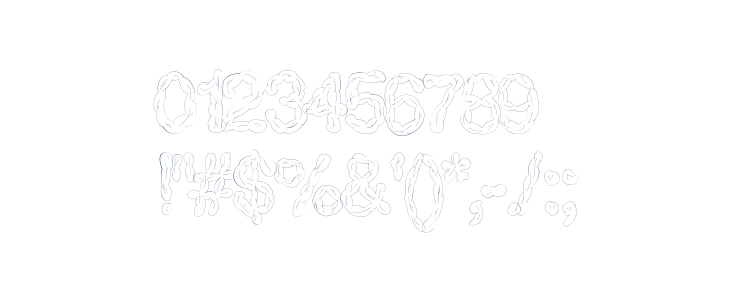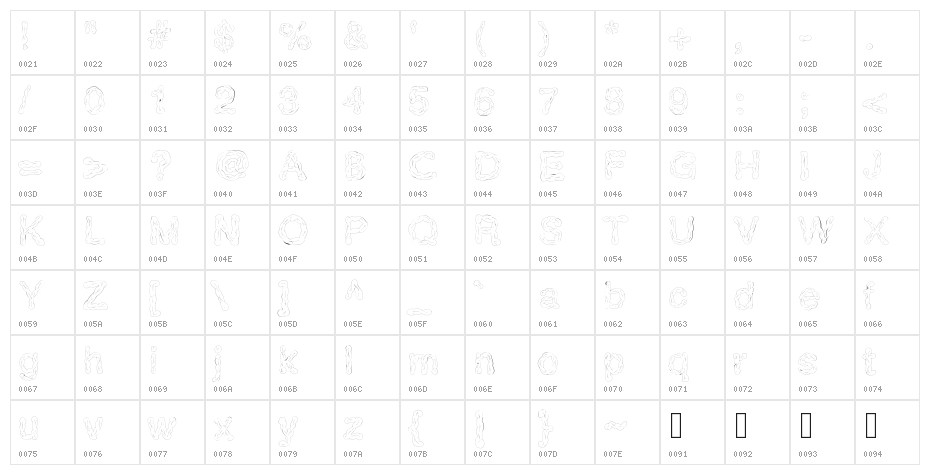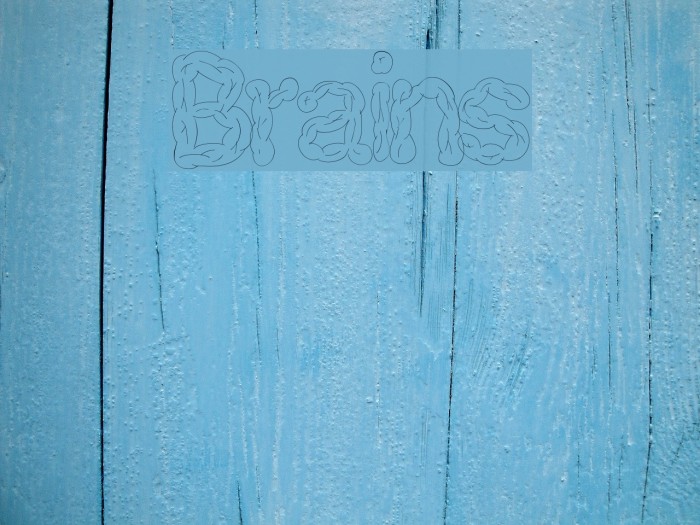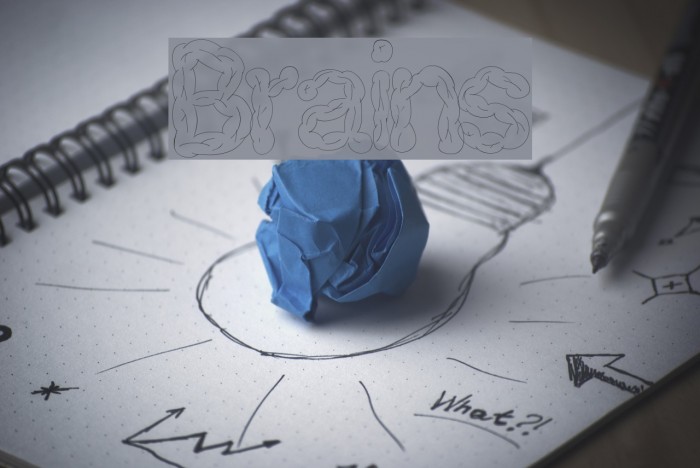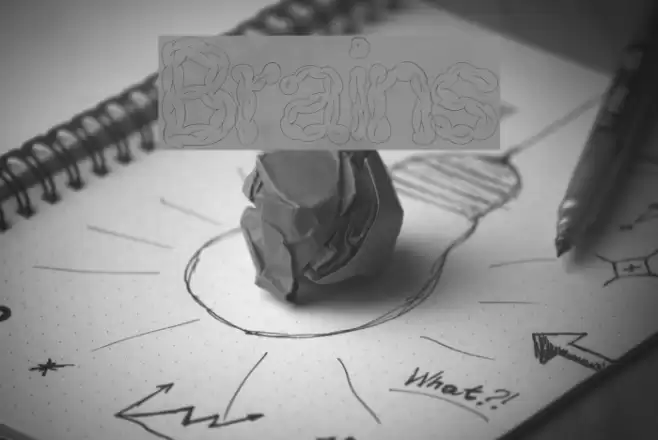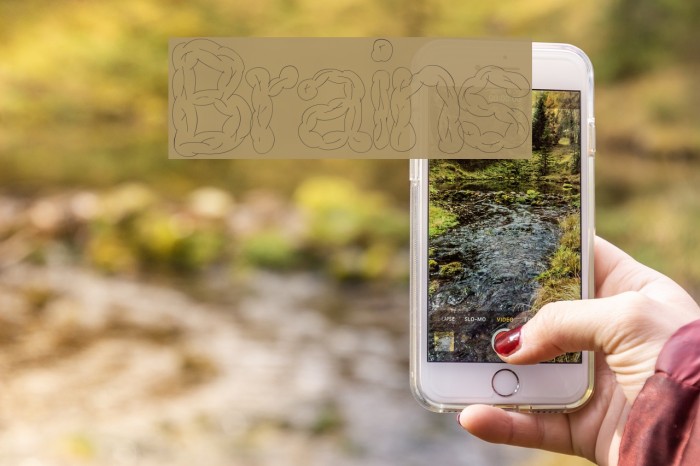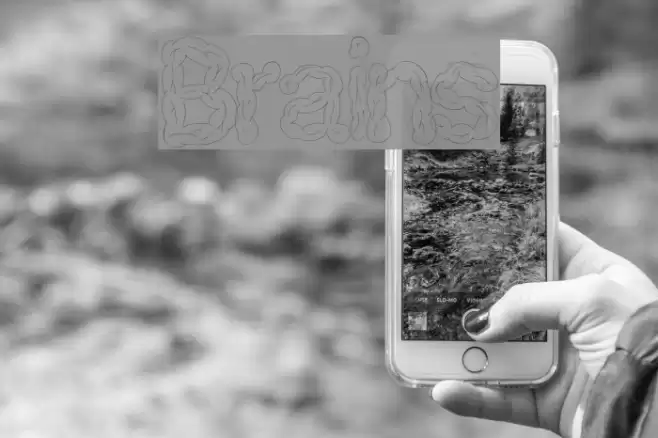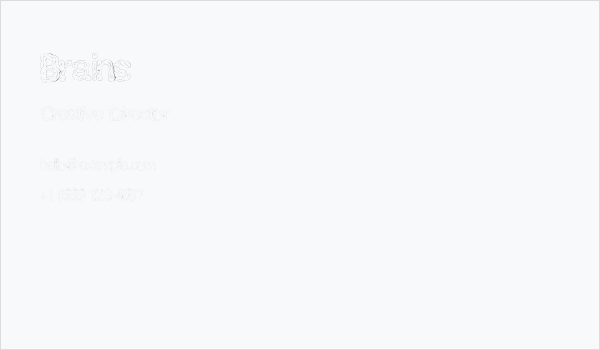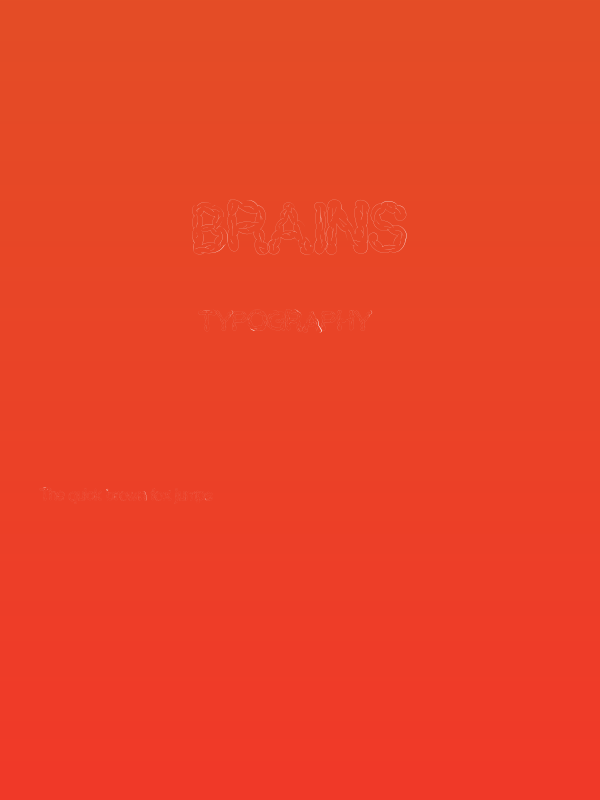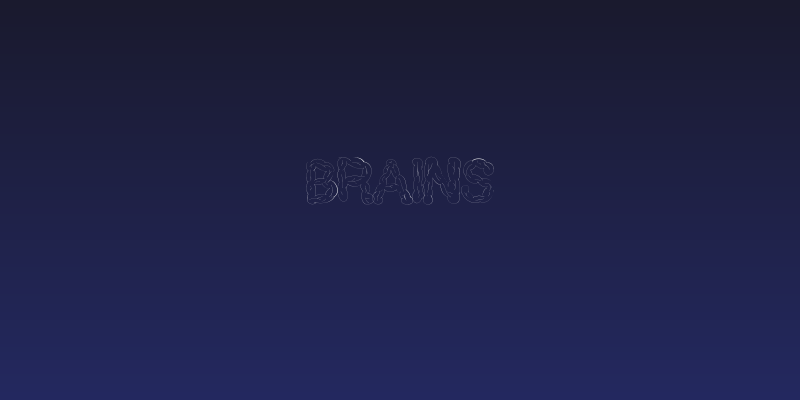
Brains Font
Brains Description
This font features a unique and playful design that mimics the appearance of brains, with each character resembling interconnected neural pathways. The letters are bold and rounded, giving a soft, organic feel that is both intriguing and visually engaging. The font maintains a consistent thickness throughout, with a slight irregularity that adds to its charm. It is highly decorative, making it suitable for creative projects that require a distinctive and eye-catching typeface. The characters are well-spaced, ensuring readability despite their intricate design.
| Proposed Projects | Ideal for Halloween-themed designs, educational materials about neuroscience, or any project needing a quirky, science-inspired aesthetic. |